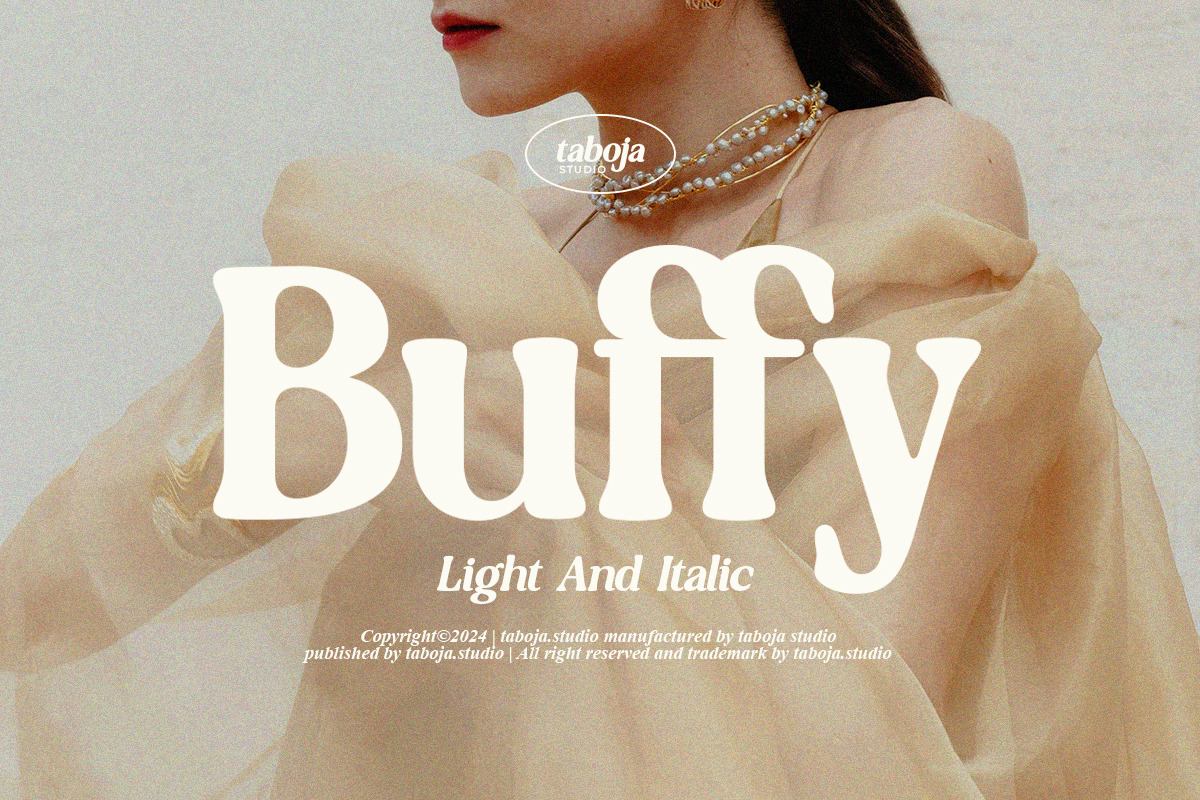
TBJ Buffy - Light & Italic Serif Font Free Download is an elegant and versatile serif typeface that features both a light weight and italic style. With its refined letterforms and subtle contrast, TBJ Buffy is perfect for projects that require sophistication and clarity. Ideal for branding, editorial design, invitations, websites, and more, this font brings an air of elegance to any design.
The light weight adds a delicate, airy feel, while the italic style gives it a touch of dynamism and elegance. Whether you're designing for high-end brands or crafting an elegant invitation, TBJ Buffy offers a professional, stylish touch to your typography.